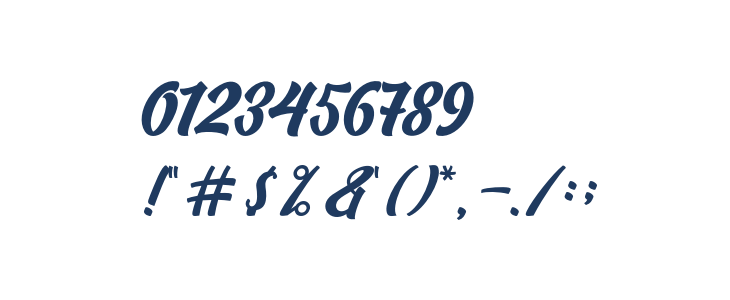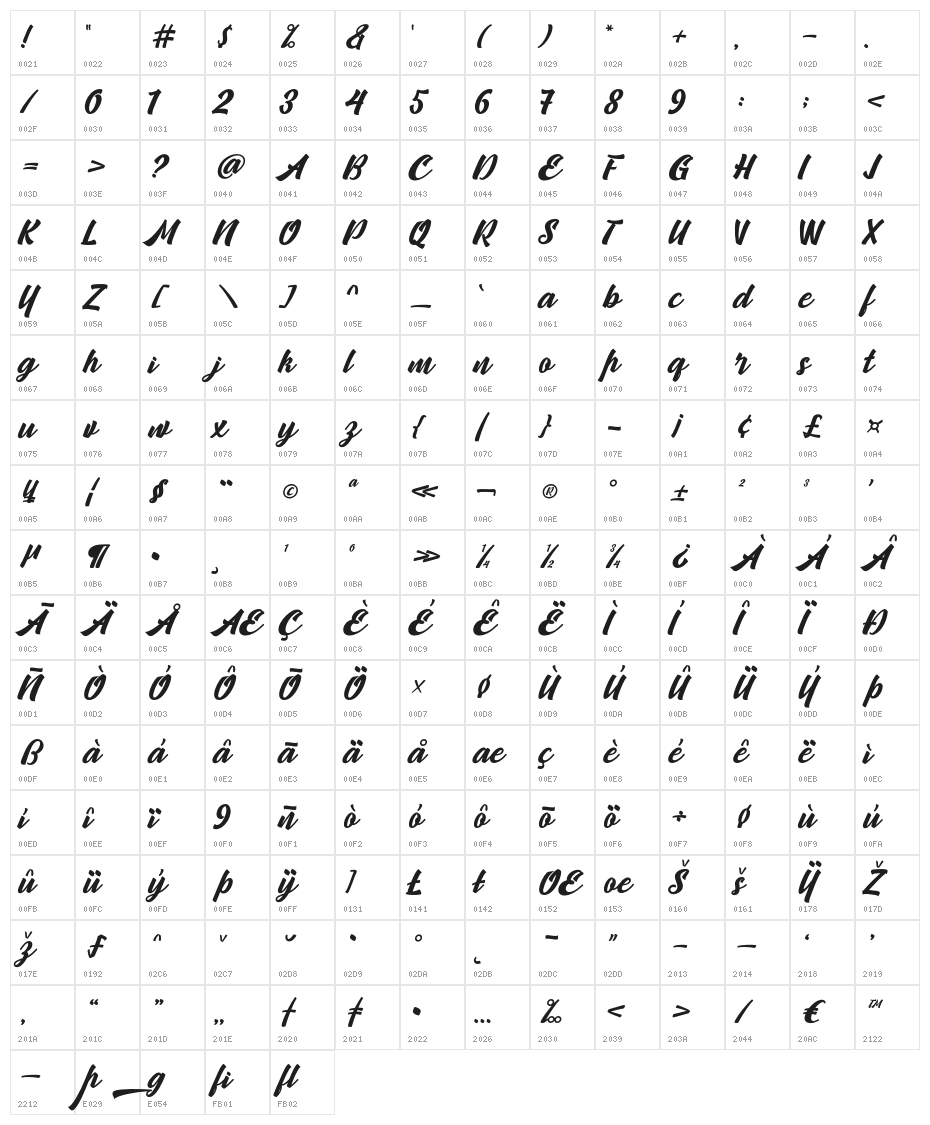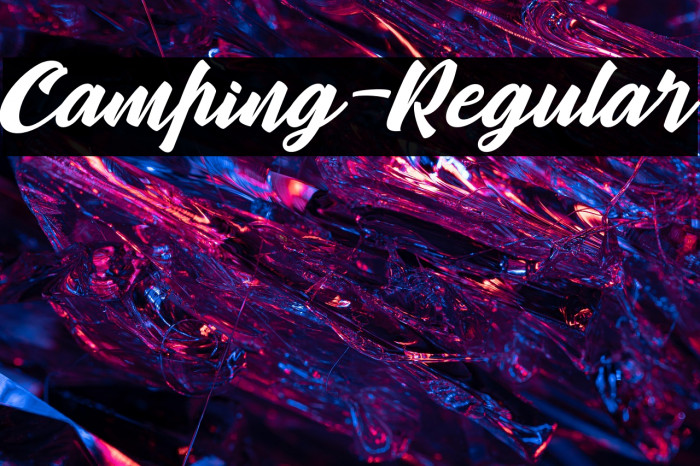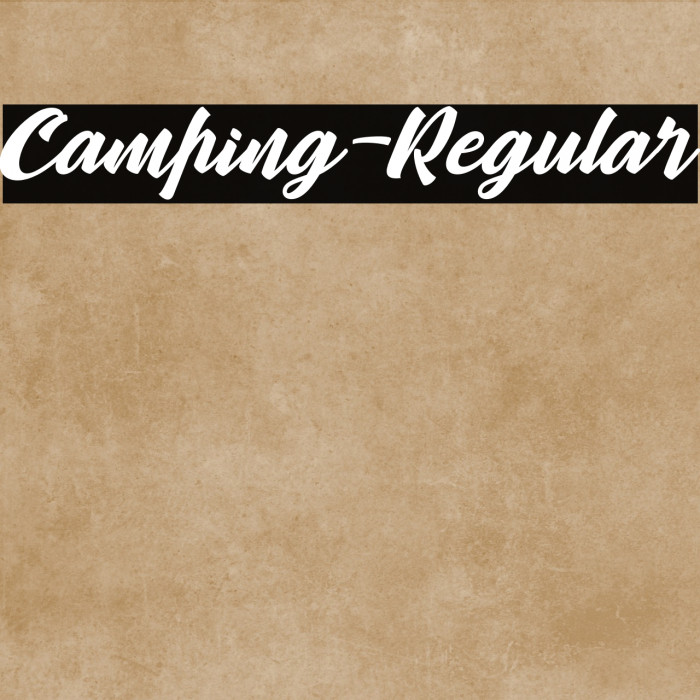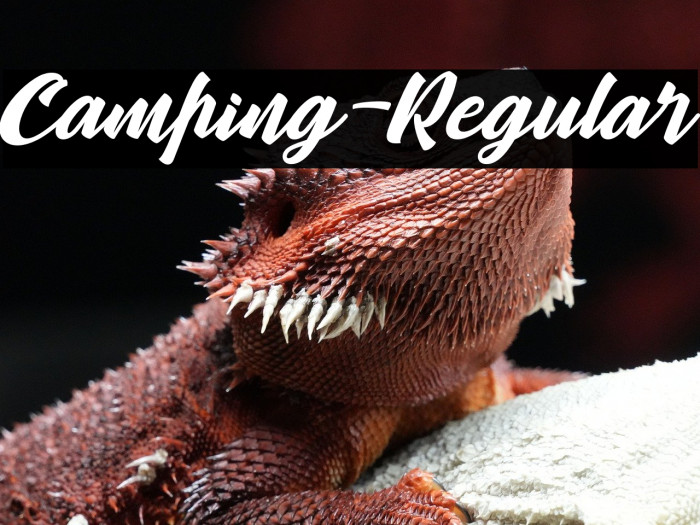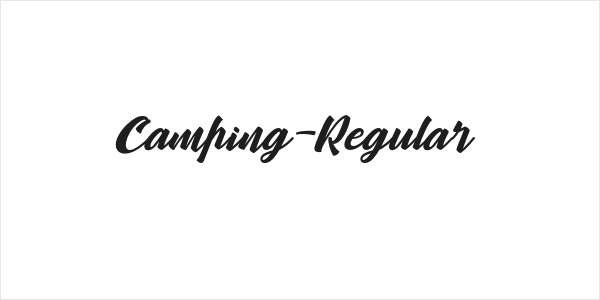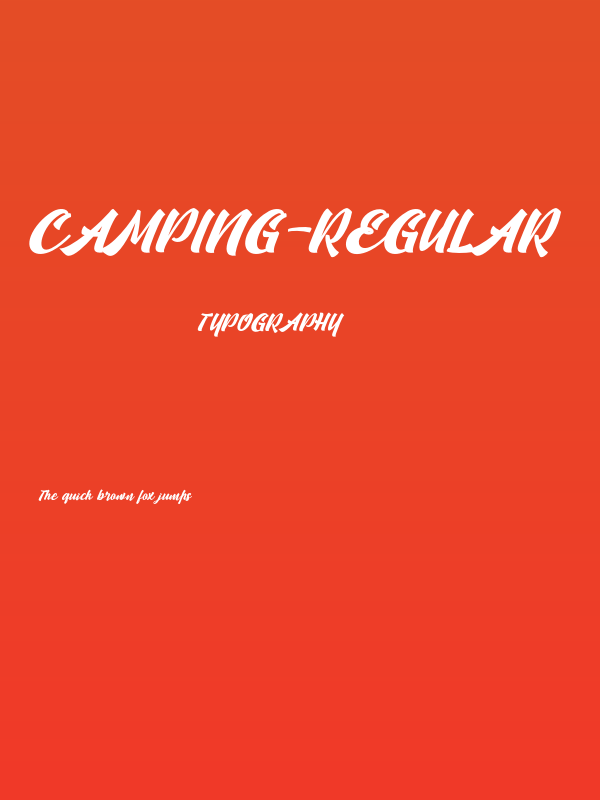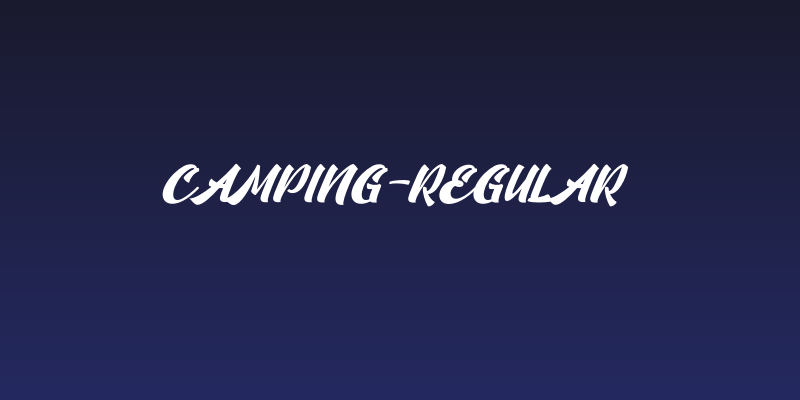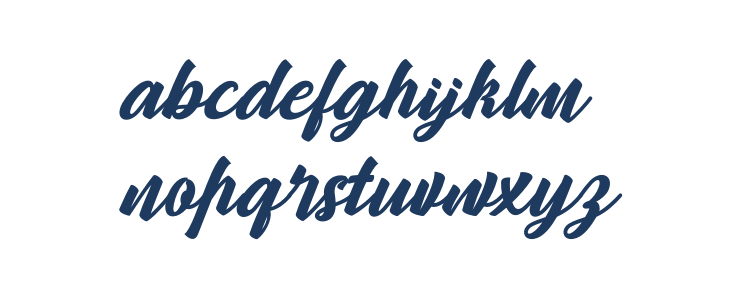
Camping-Regular Font
Camping-Regular Description
This font features a bold and dynamic script style with a handwritten feel. The letters are fluid and connected, giving a sense of movement and energy. The uppercase characters are particularly striking, with sweeping curves and a sense of flair. The lowercase letters maintain a consistent flow, enhancing readability while retaining the font's artistic nature. Numbers and special characters are designed to match the overall style, ensuring a cohesive look across all text elements. This font is ideal for projects that require a personal touch or a creative, expressive appearance.